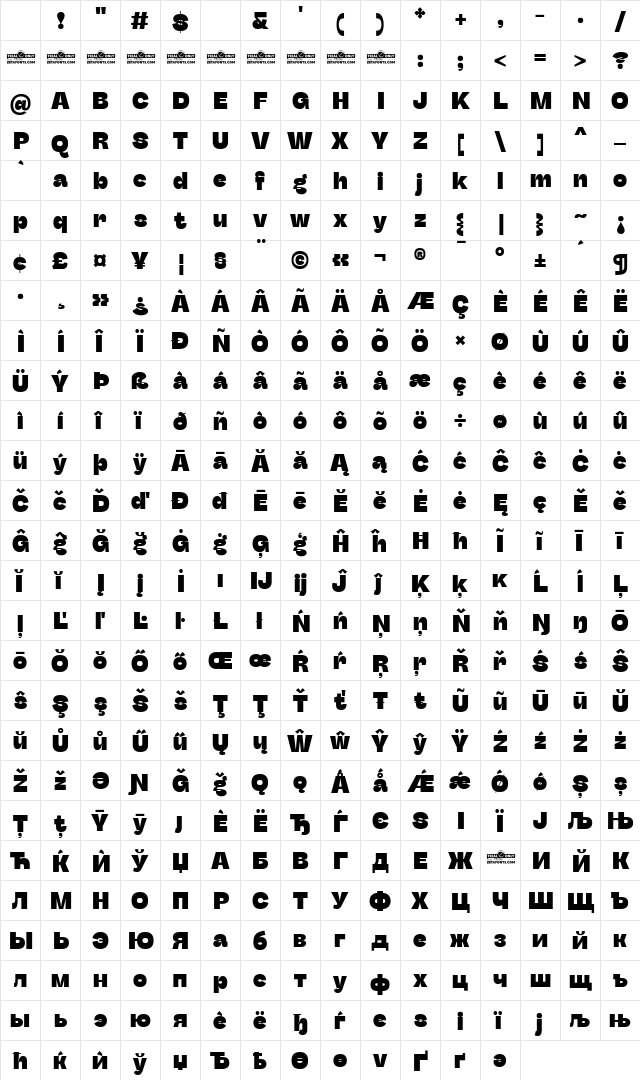
Stinger Trial Heavy
Foundry: Studio Kmzero & Zetafonts
Designer: Cosimo Lorenzo Pancini
Complete Stinger Trial Heavy glyph index. Displaying only characters natively supported by Stinger Trial Heavy font.
Design Context for Stinger Trial
Stinger Trial is a composed and adaptable typeface that performs quietly and consistently across a wide range of design contexts.